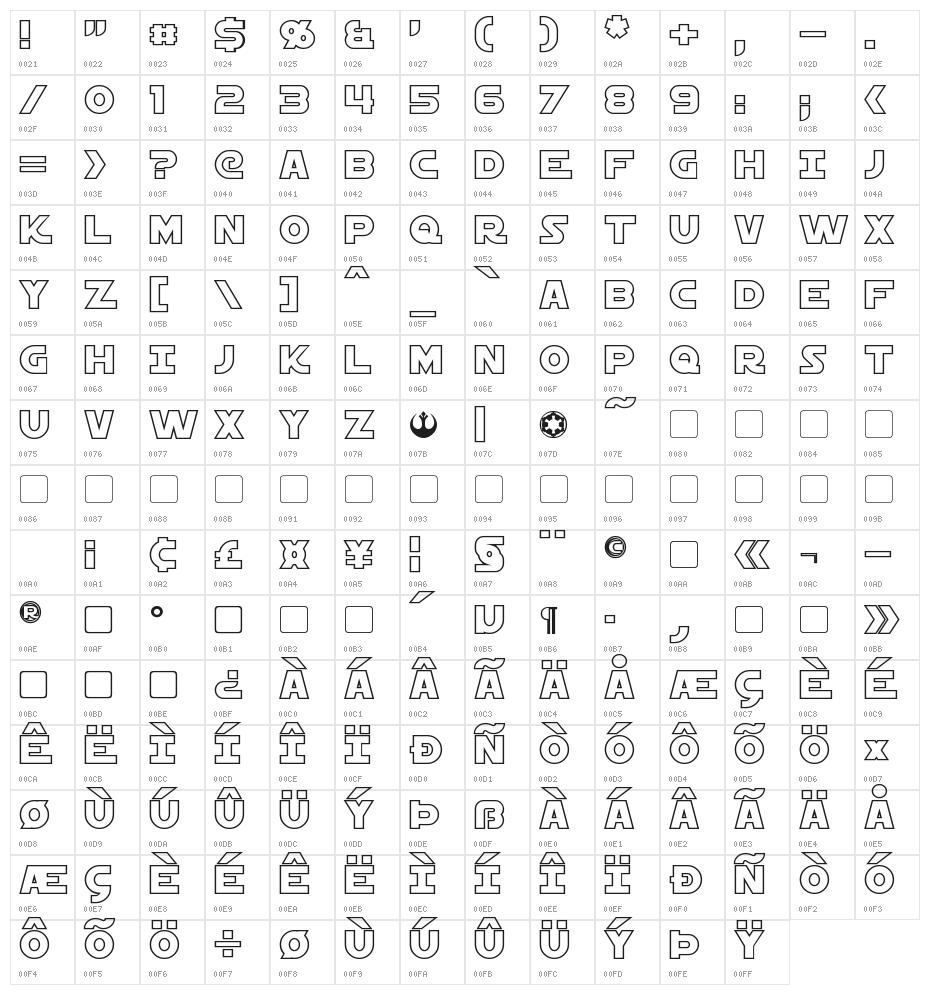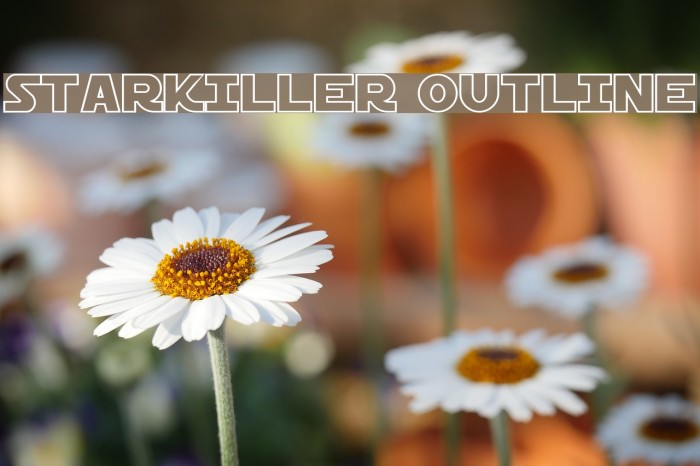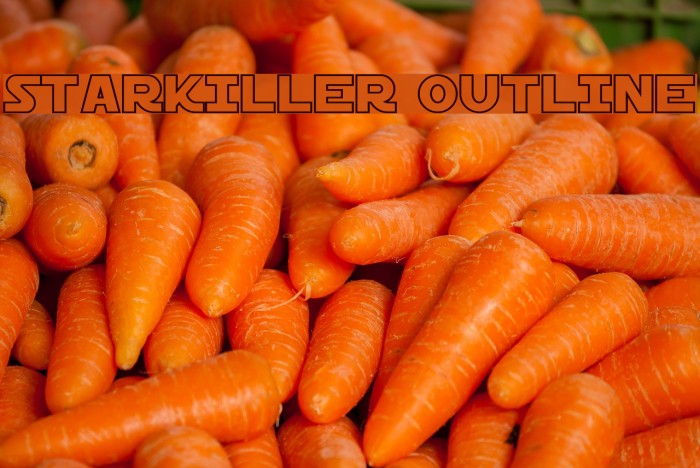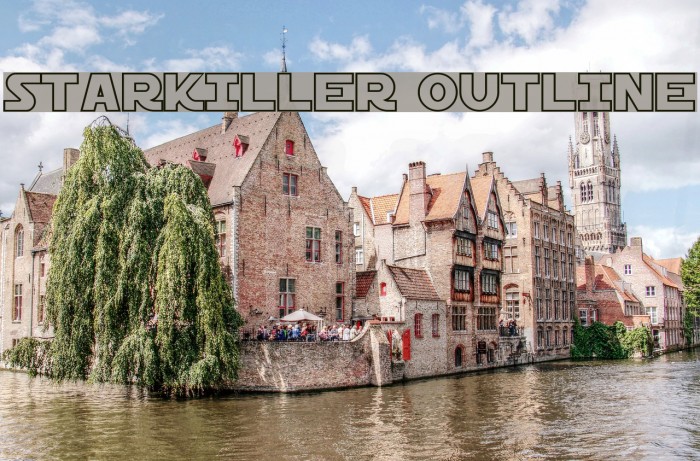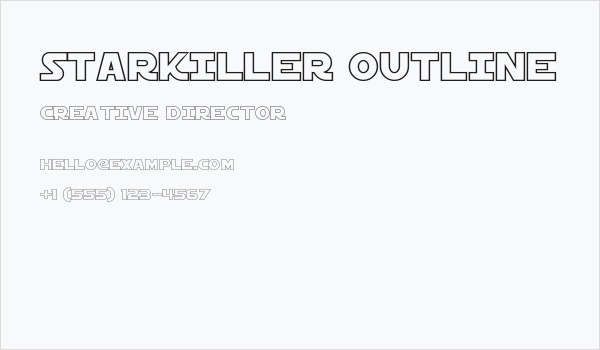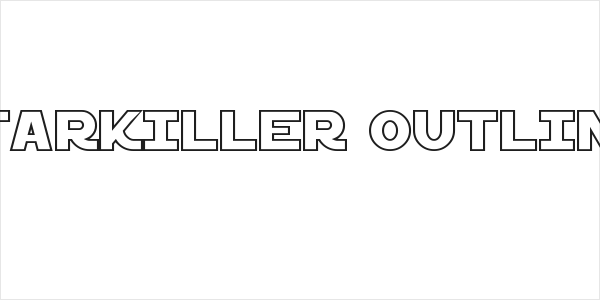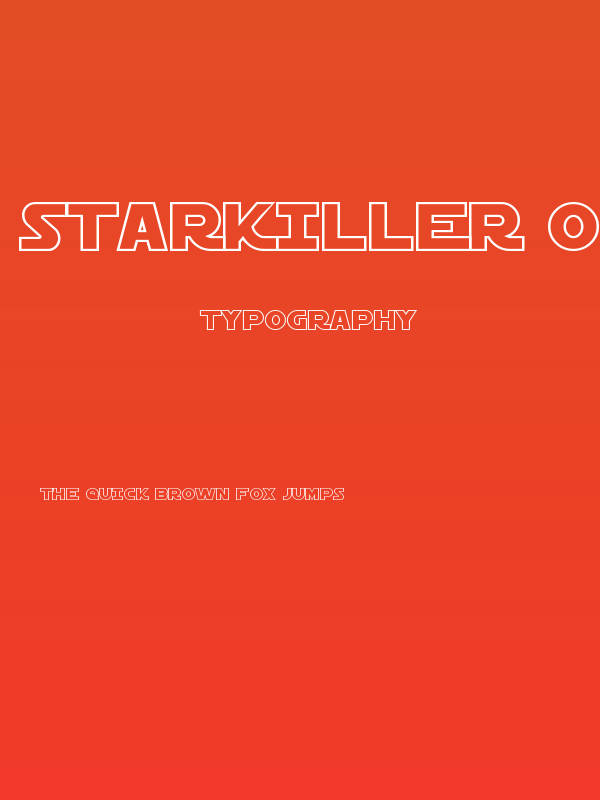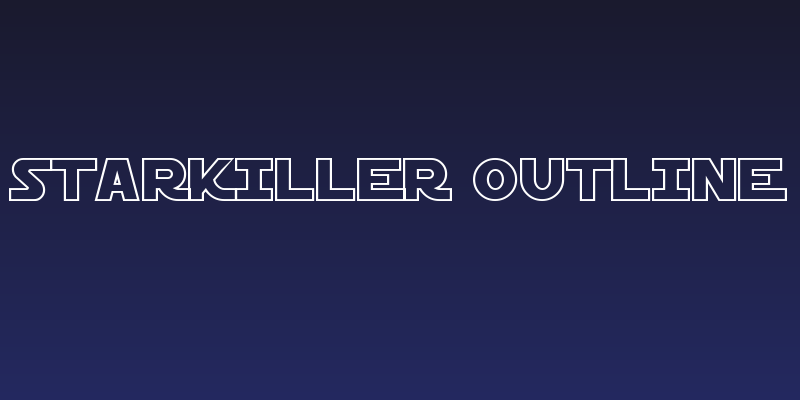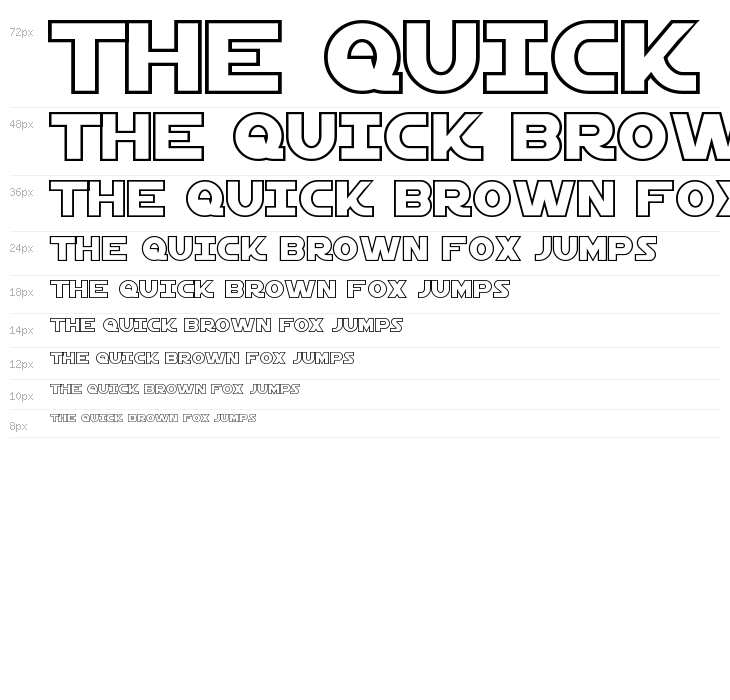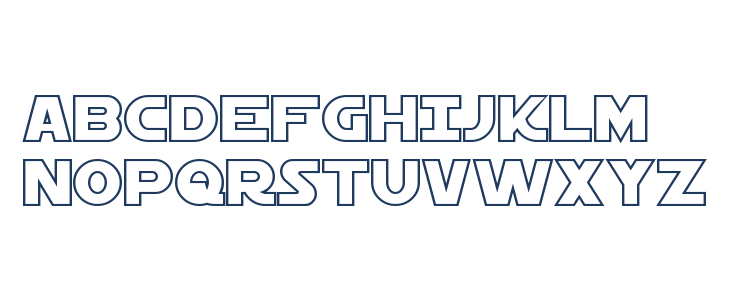
Starkiller Outline Font
Starkiller Outline Description
This font features a bold, geometric outline style that gives it a futuristic and dynamic appearance. The characters are constructed with clean, sharp lines and uniform thickness, creating a sense of precision and modernity. The uppercase letters are particularly striking, with a strong presence that commands attention. The numbers and special characters maintain the same bold outline, ensuring consistency across all glyphs. This font is ideal for projects that require a modern, tech-inspired aesthetic, such as video game titles, sci-fi movie posters, or tech company branding.
| Proposed Projects | Ideal for video game titles, sci-fi movie posters, tech company branding, and futuristic designs. |